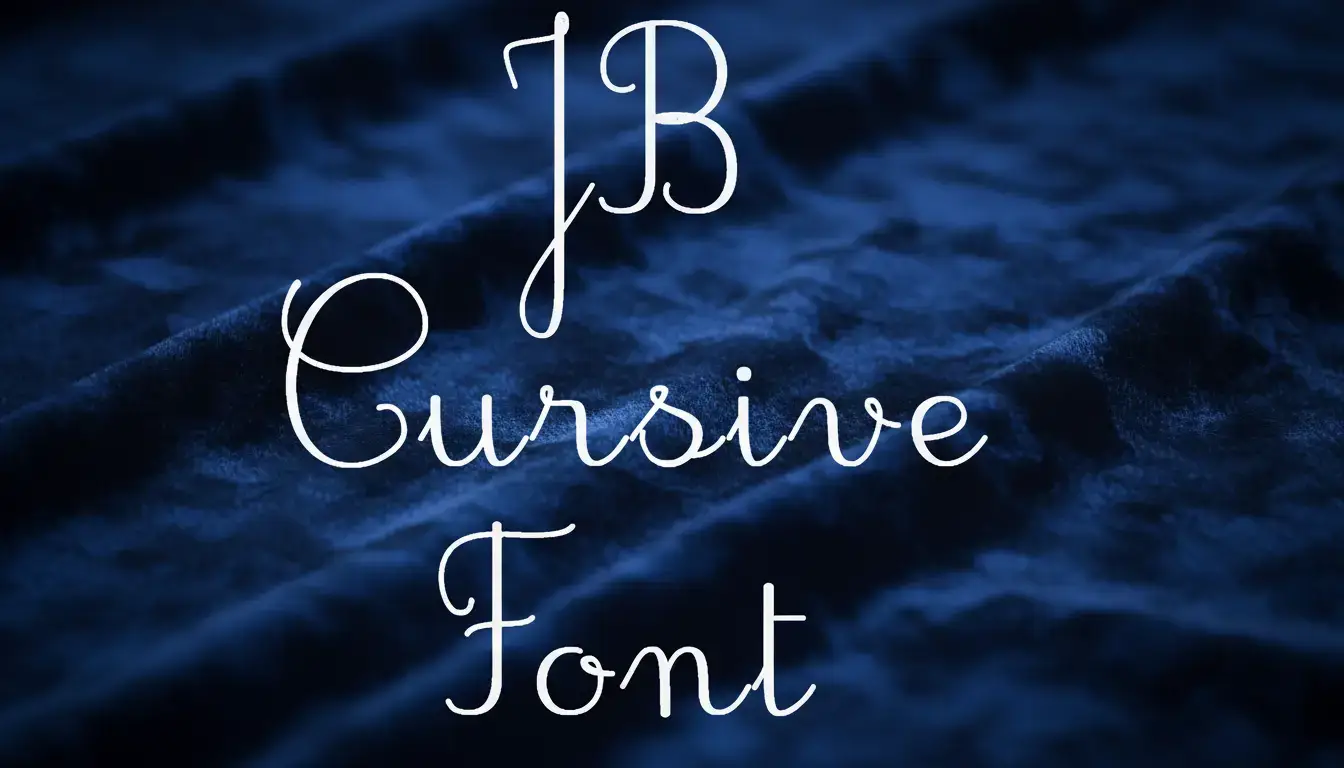
JB Cursive Font
JB Cursive
JB Cursive is a script font. Its flowing, pen-made letters give names and short phrases a personal, polished look. You can download it for free and test it with your own words in the preview above.
What You Can Type With JB Cursive
JB Cursive covers the full alphabet in upper and lowercase, plus all ten numbers, so you can set names, dates and prices without switching fonts. Everyday marks like &, !, ? and @ are there too. Thanks to its accented letters, it also works for Spanish, French, German, Portuguese and Italian, not just English.
Where JB Cursive Works Best
Designers usually reach for fonts like JB Cursive when they're making wedding invitations, logos and signature-style headings. Script fonts read best in short bursts, so keep it to names, titles and one-line quotes. Skip all caps: script capitals are drawn to start a word, not to fill one.
Does JB Cursive support accented letters?
Yes. JB Cursive includes the accented letters needed for Spanish, French, German, Portuguese and Italian, so it works for more than just English.